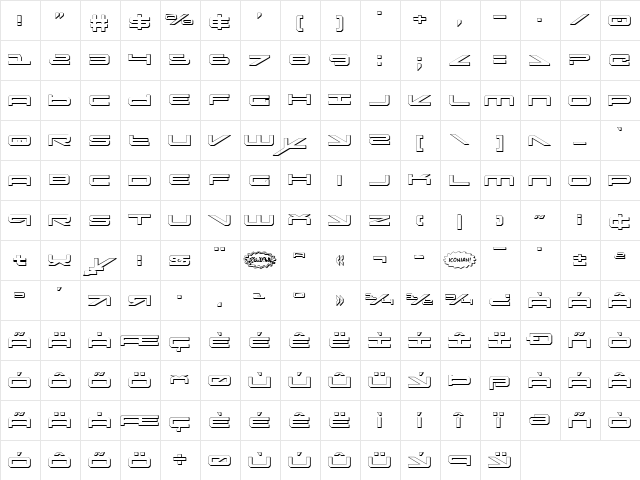
Complete Oramac Shadow glyph index. Displaying only characters natively supported by Oramac Shadow font.
Oramac is built around its visual character rather than neutral utility - its distinctive forms are designed to make an impression at display sizes.
Font Pairing: Pair with a clean neutral sans-serif for body copy to let Oramac's character lead without overwhelming the composition.
Pro Tip: Use Oramac exclusively at display sizes - it was designed to be seen, not read at length. Let a neutral companion handle body copy.